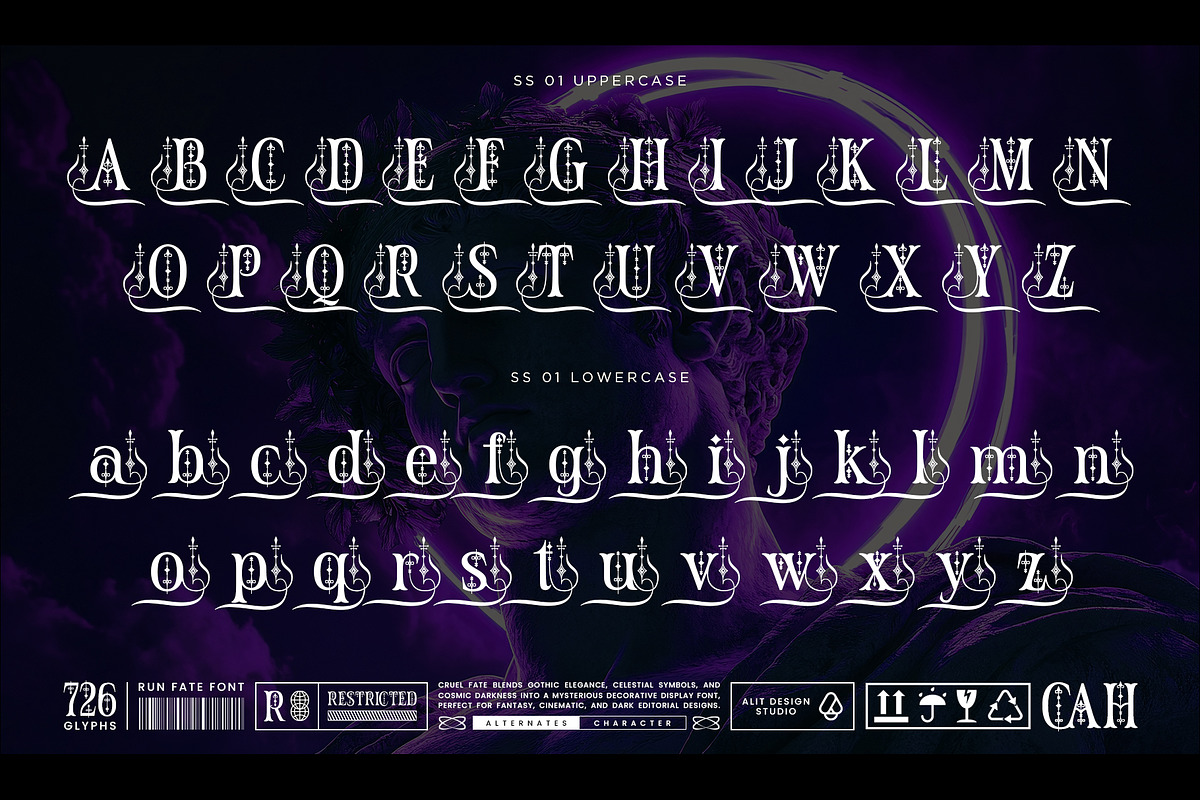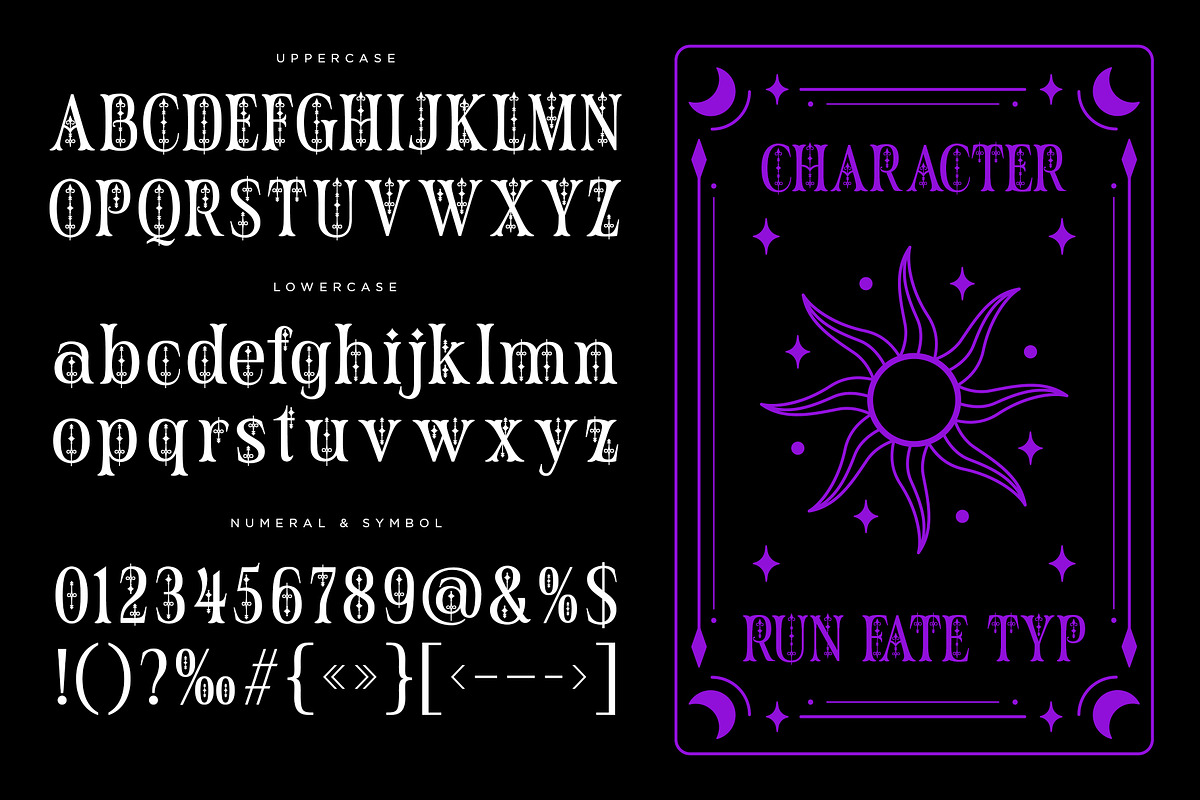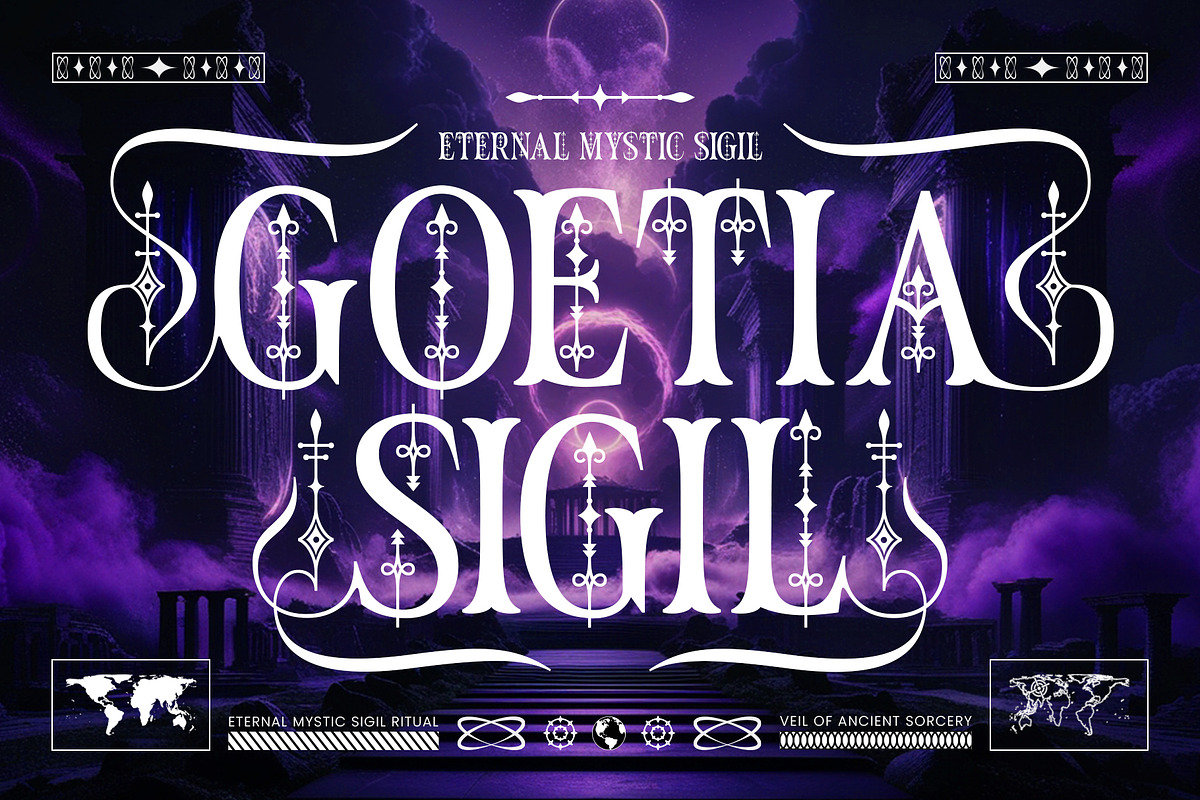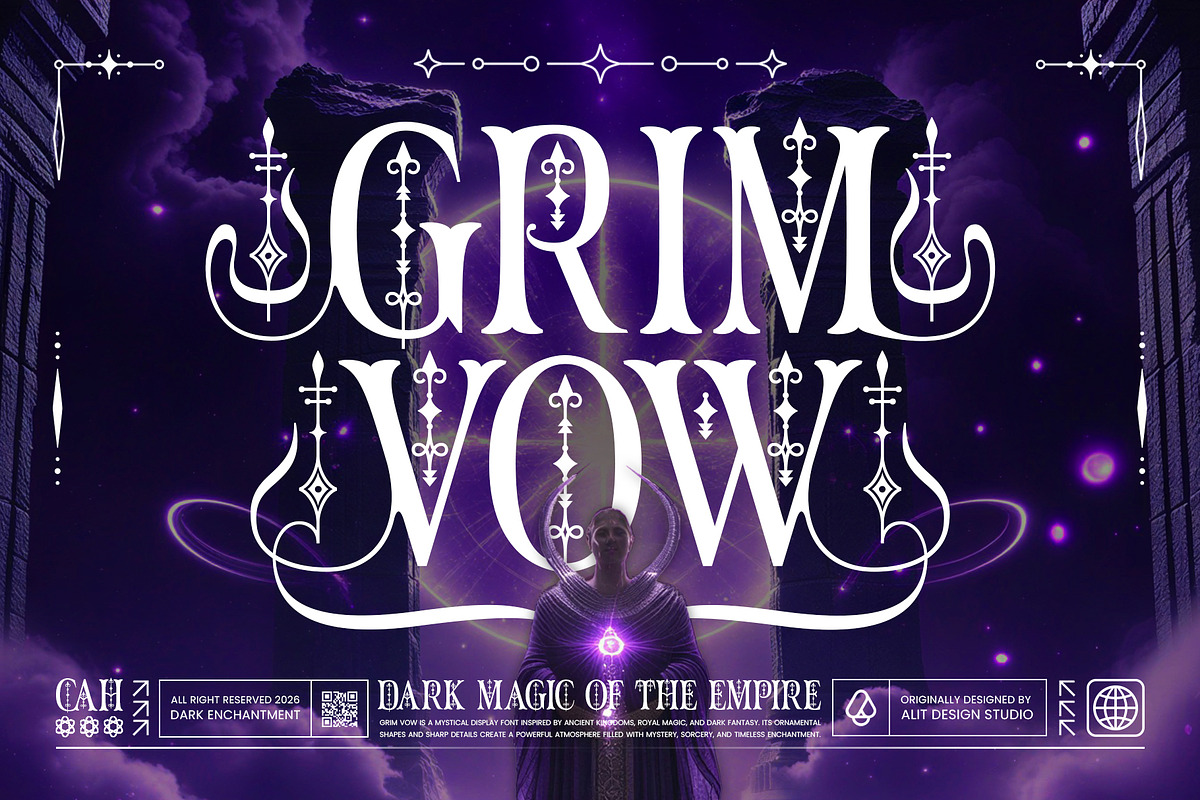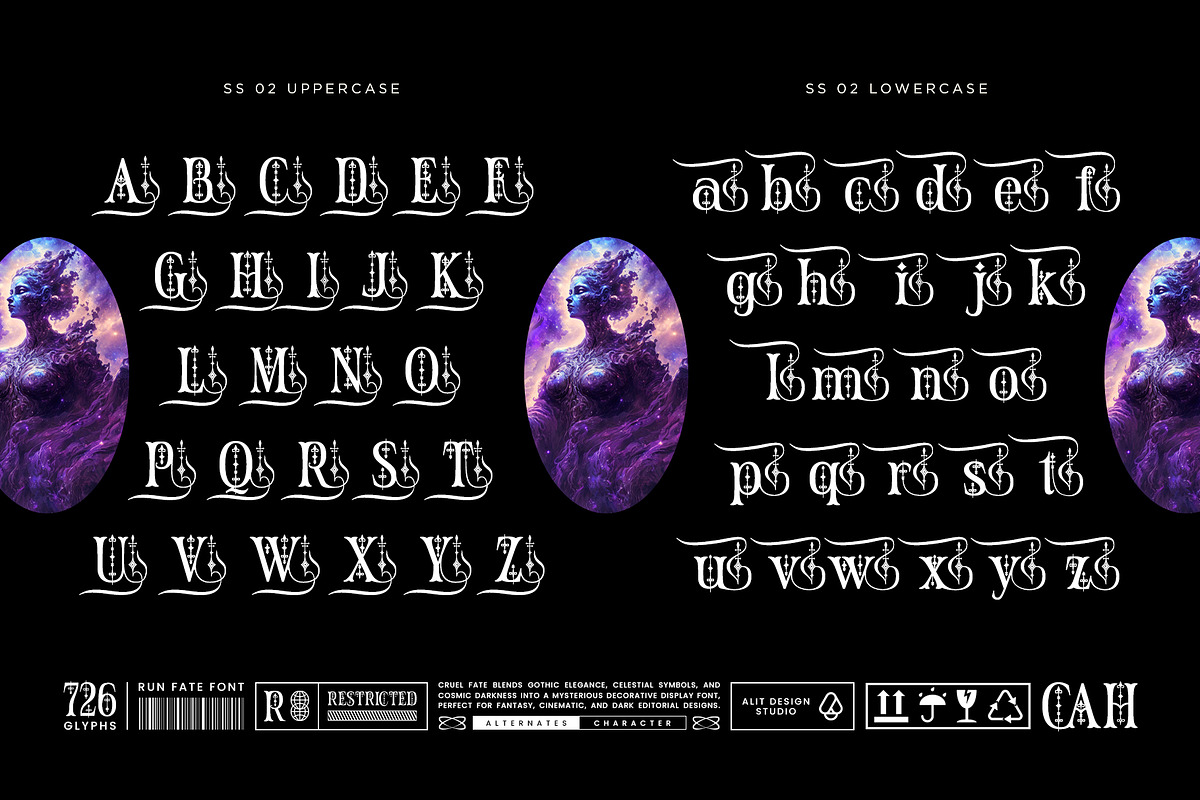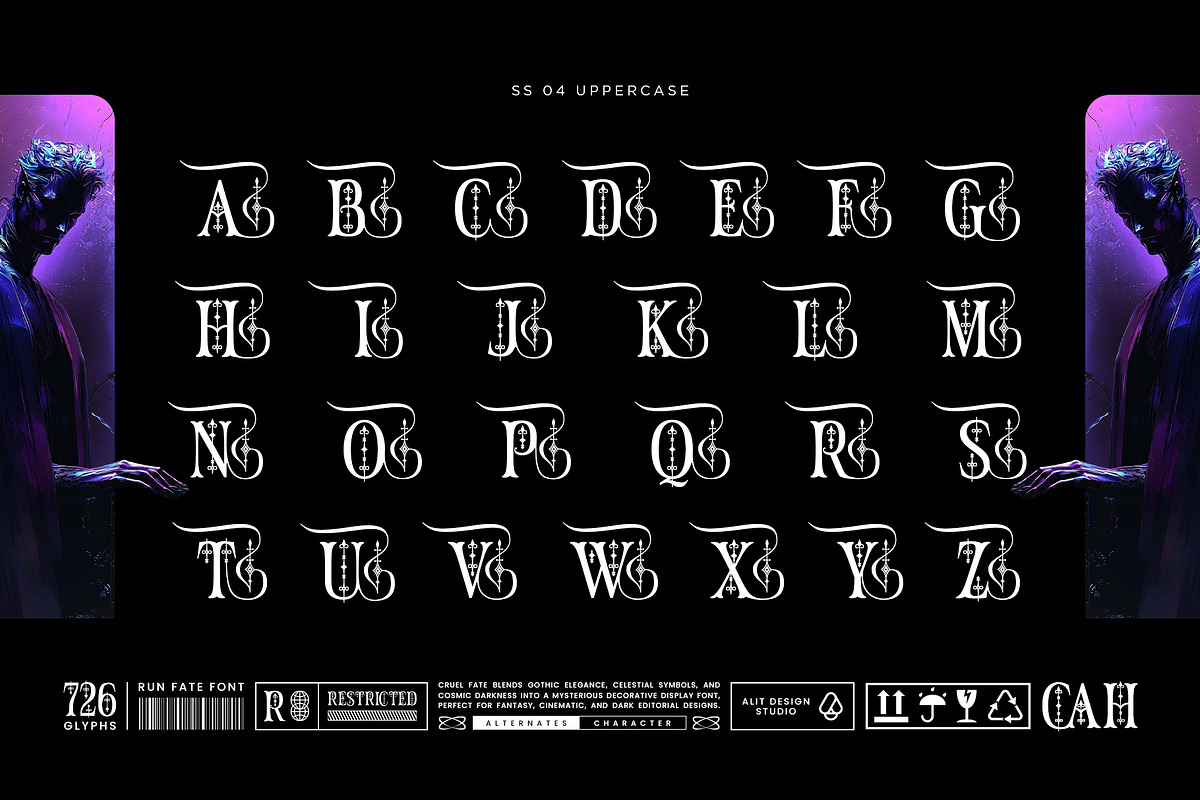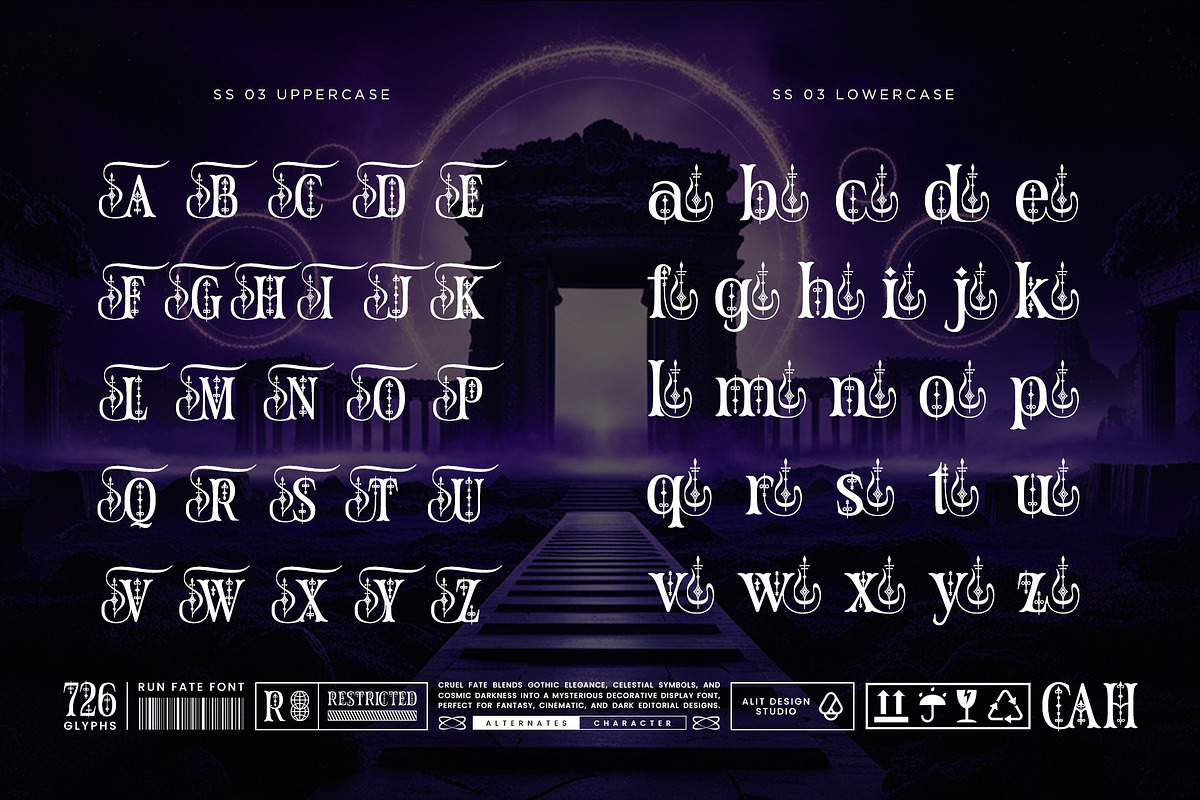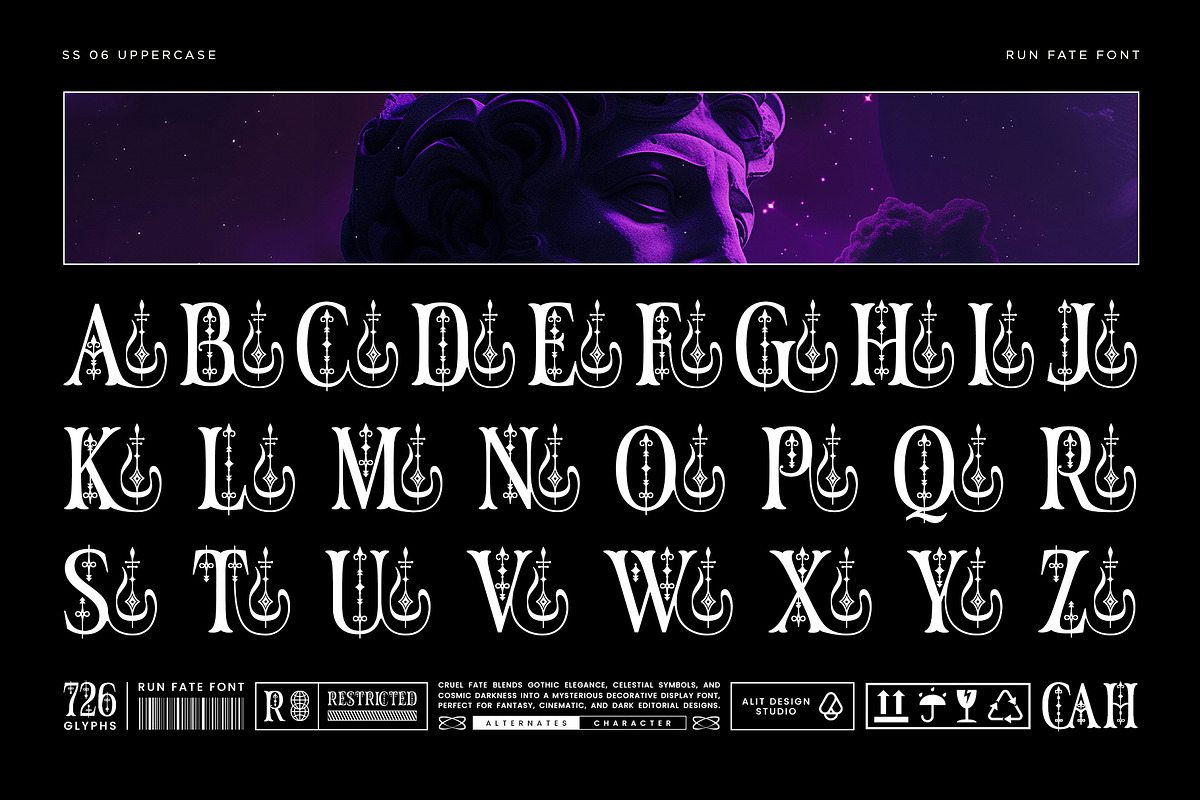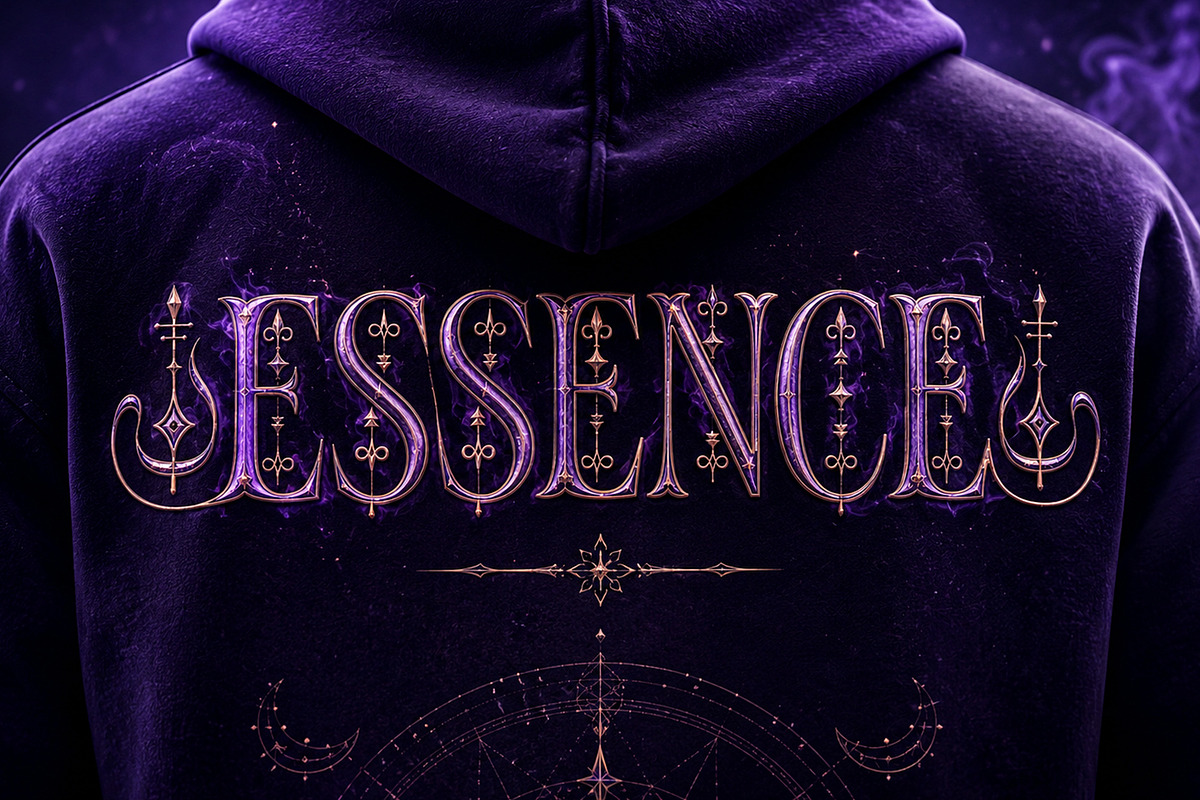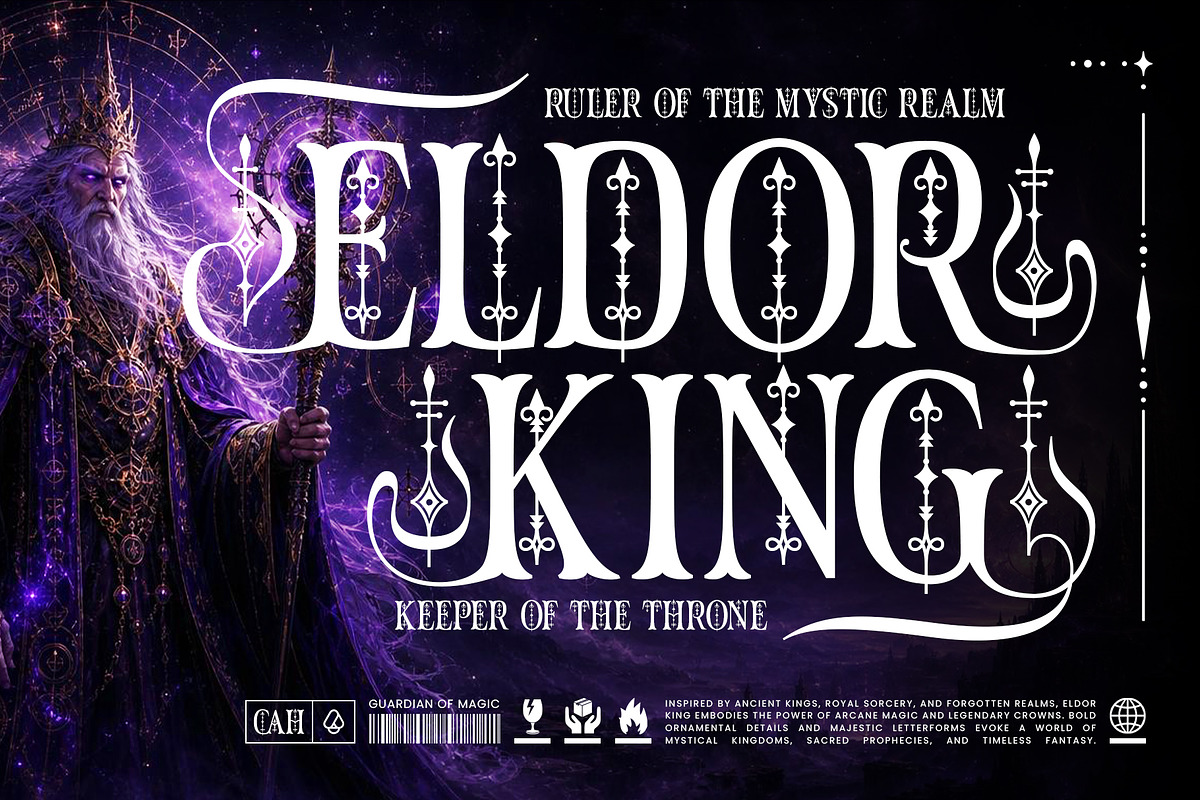
Rune Fate Typeface
Enter the Realm of Dark Fantasy and Cosmic Elegance.
Unveil the magic of your next design project with the Rune Fate Typeface, a mystical decorative display font that masterfully blends gothic elegance with celestial darkness. Inspired by ancient sorcery, royal magic, and forgotten realms, this typeface is crafted to give your designs a powerful, luxurious, and mysterious visual presence.
Featuring sharp serif forms, dramatic sweeping curves, and intricate ornamental details, Rune Fate creates an atmosphere filled with timeless enchantment. Whether you are designing a high-end mystical brand, a captivating cinematic poster, or dark editorial layouts, this typeface commands attention and evokes a world of sacred prophecies and arcane magic.
Designed with versatility and professional typography in mind, Rune Fate comes packed with an expansive set of characters and stylistic alternates, allowing you to customize your letterforms to perfectly match your creative vision.
Massive Character Set: A comprehensive library of 726 glyphs to give you ultimate creative freedom.
Standard Characters: Includes beautifully crafted Uppercase and Lowercase letters.
Numerals & Punctuation: Full set of numbers, symbols, and standard punctuation.
Extensive Alternates: Features six sets of Stylistic Alternates (SS01 through SS06) for highly decorative and customizable typography.
Custom Ligatures: Specially designed ligatures (e.g., fi, fl, ss, ti, ff) for smooth and elegant letter pairing.
Global Reach: Broad multilingual support to accommodate a wide range of languages.
Dark fantasy book covers and cinematic movie posters.
Luxury packaging (such as high-end cosmetics, perfumes, and spirits).
Gothic, occult, or astrology-themed branding and logos.
Alternative apparel, streetwear, and merchandise design.
Heavy metal album artwork and mysterious editorial titles.